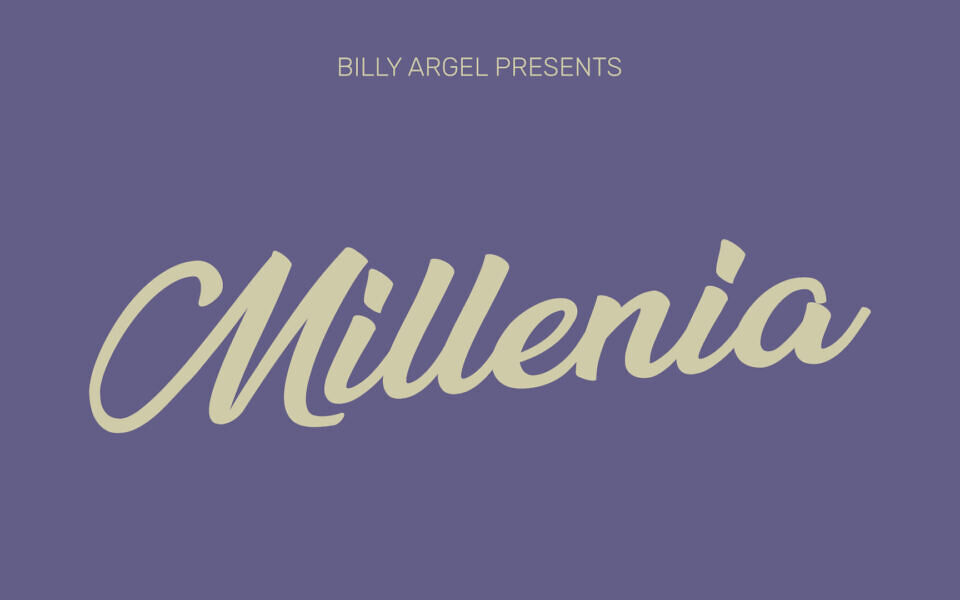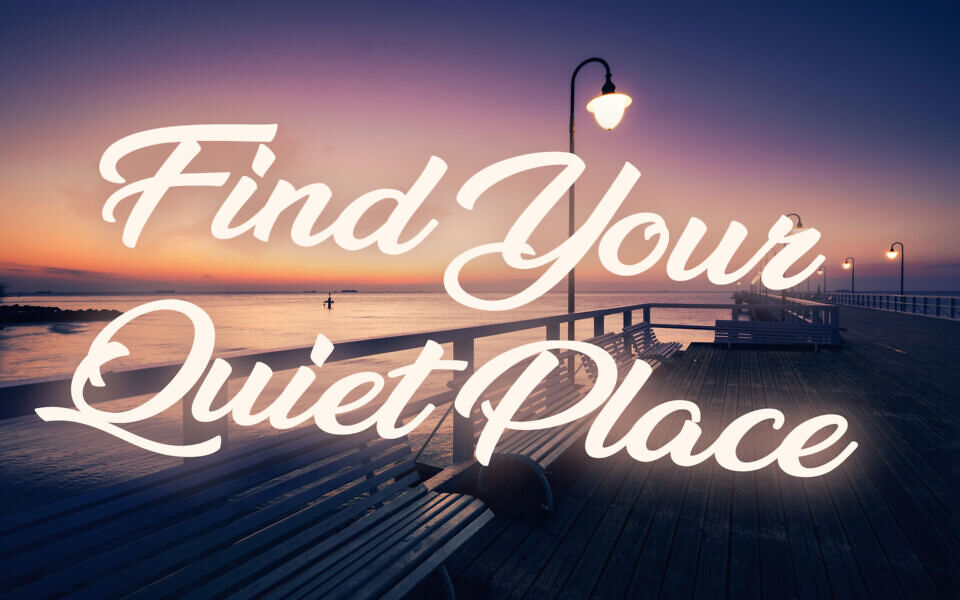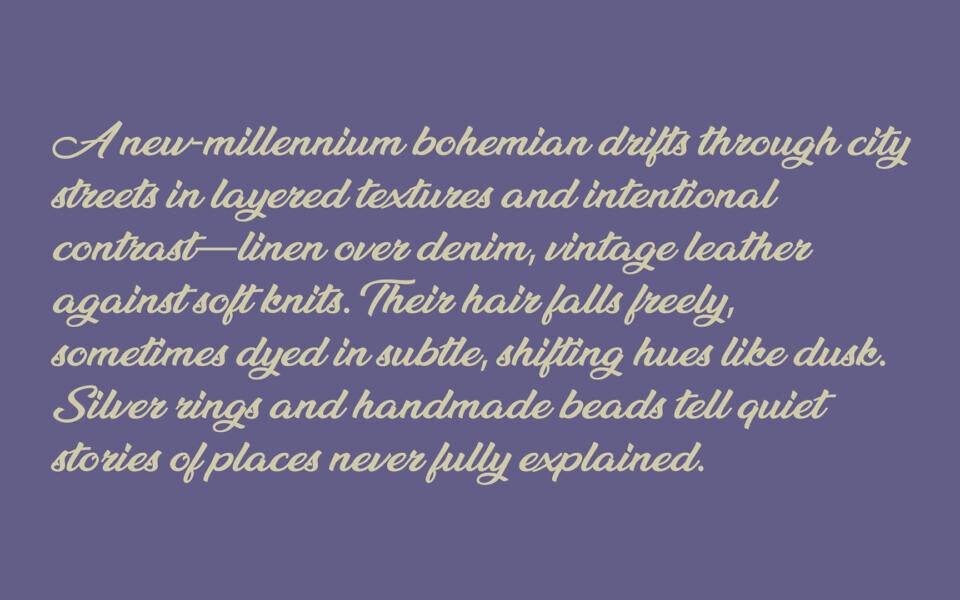
Millenia is an elegant script font designed by Billy Argel, blending bohemian elegance with a handwritten touch. Defined by its fluid, bold brush strokes and rhythmic slant, this typeface exudes a sophisticated yet casual charm.
Perfect for branding, logos, and invitations, Millenia’s organic movement creates a personalized aesthetic. Its seamless connectors and balanced weights make it ideal for high-impact headers or poetic text, offering a timeless, expressive style that helps your creative projects truly stand out.